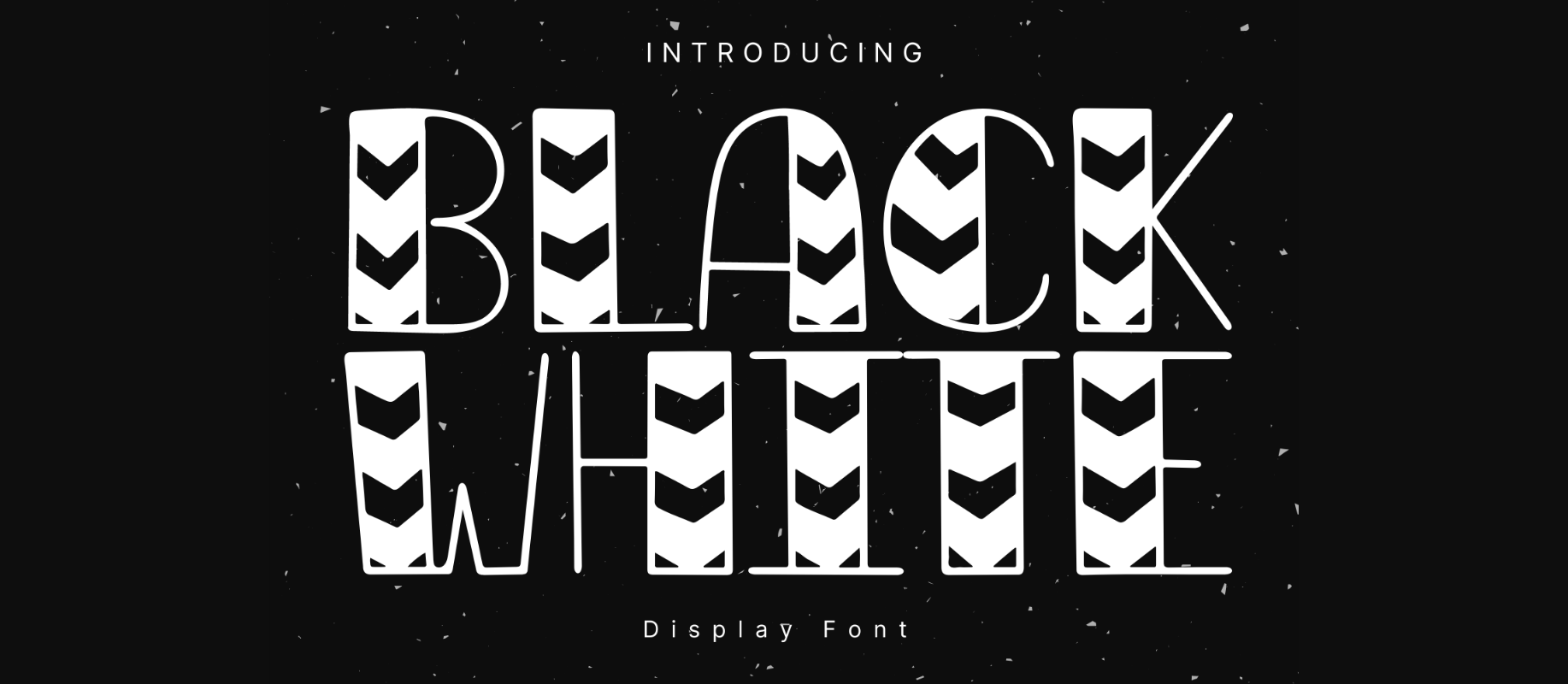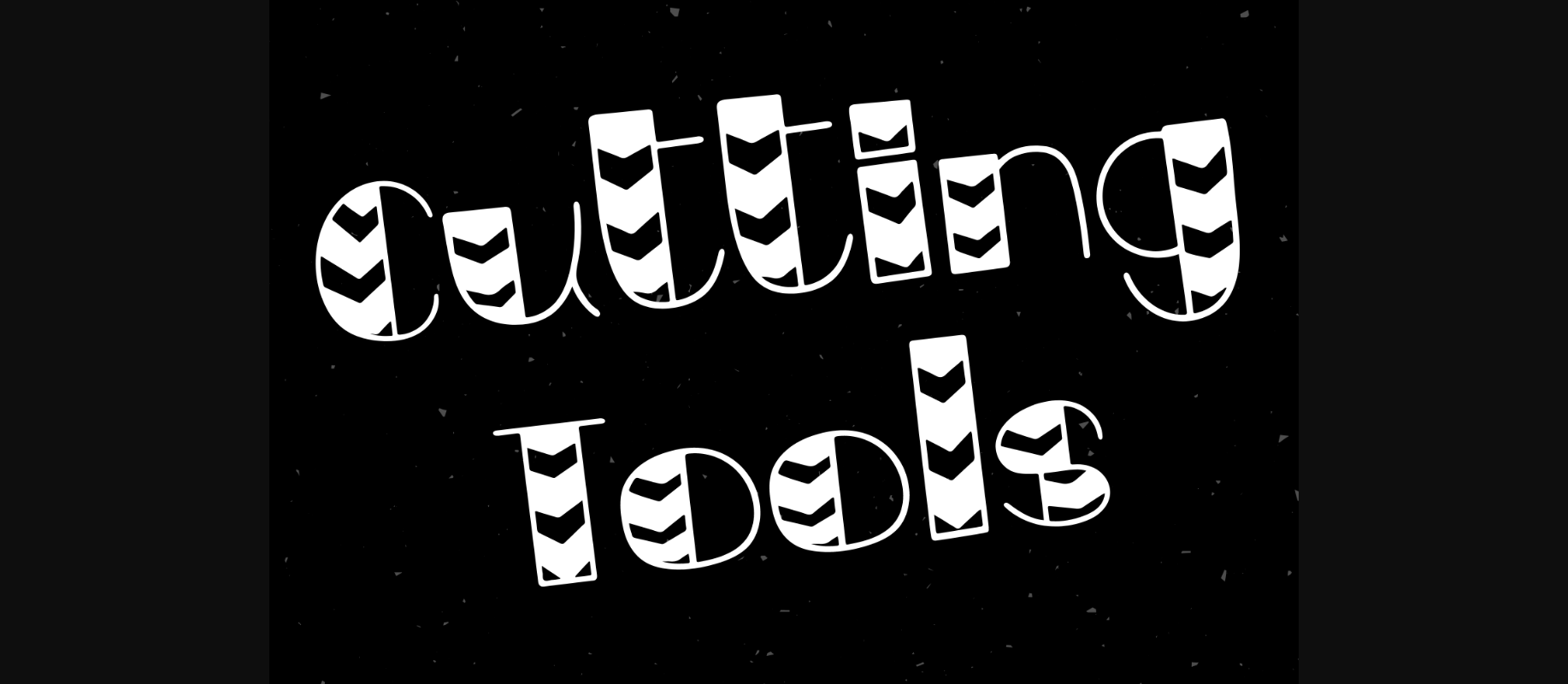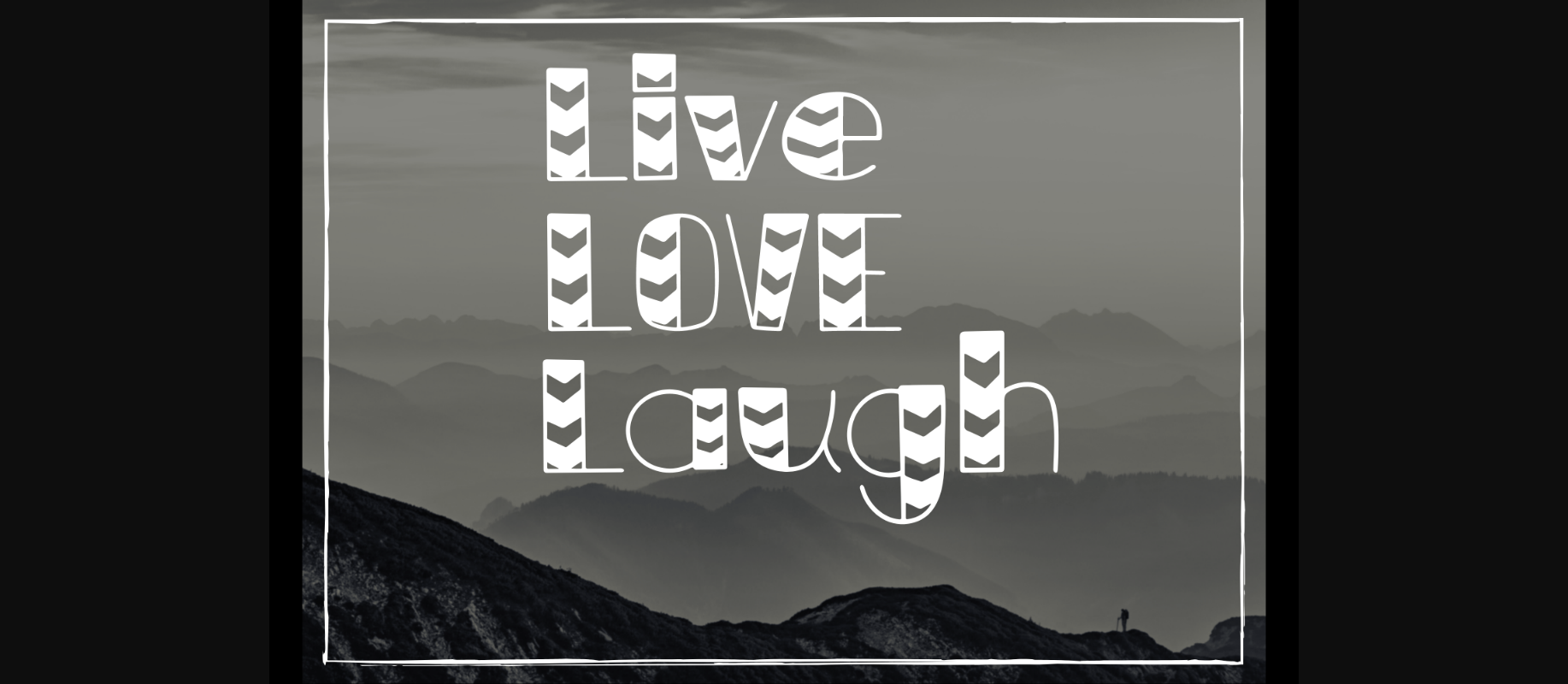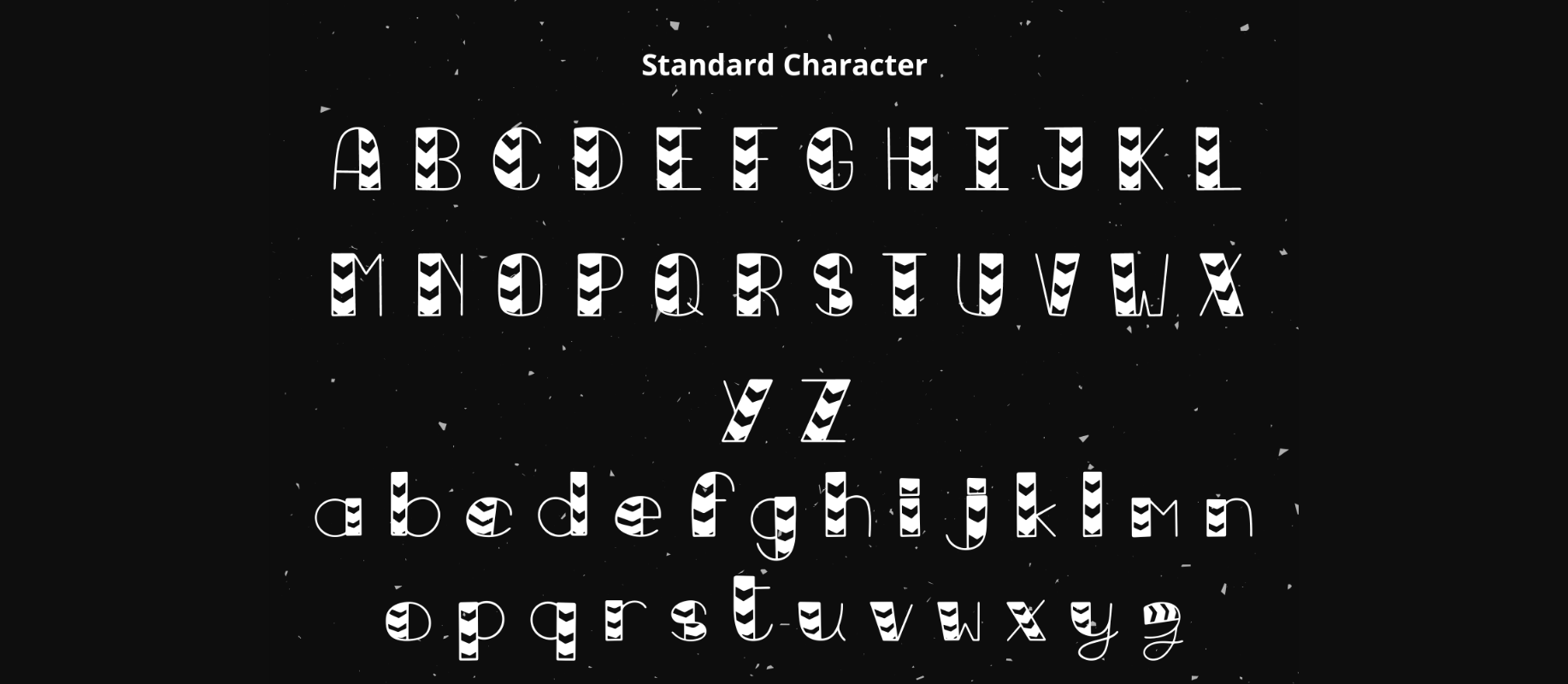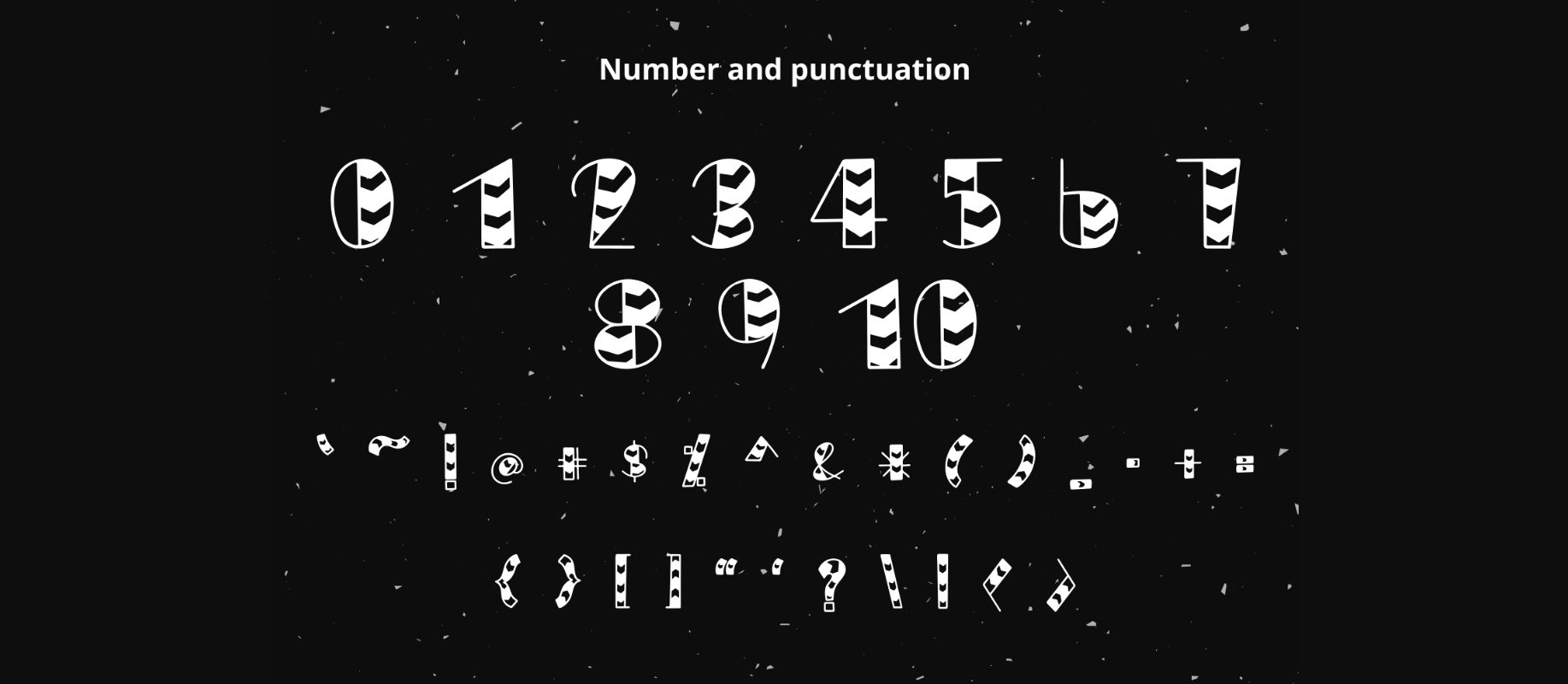
Black White Font
About Black White Font
Black White is a whimsical and cute decorative font. It can easily be matched to an incredibly large set of projects, so add it to your creative ideas and notice how it makes them stand out!